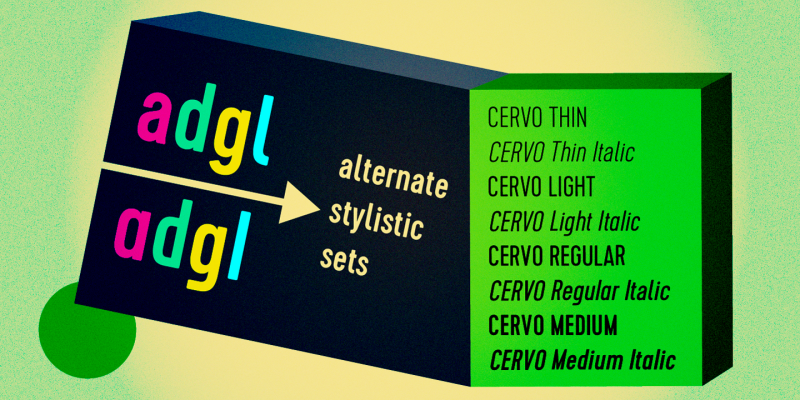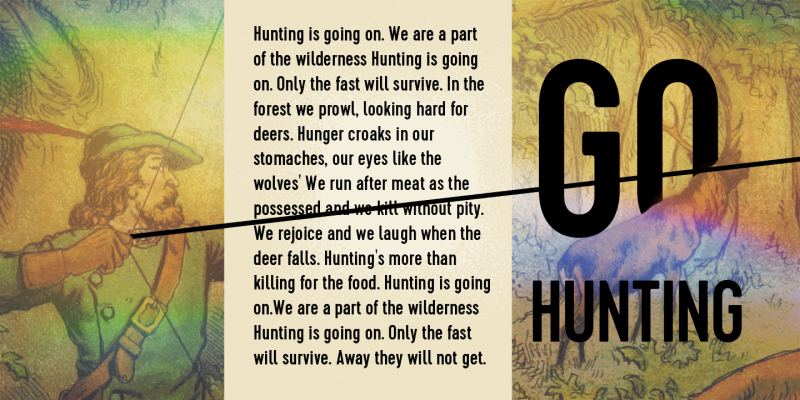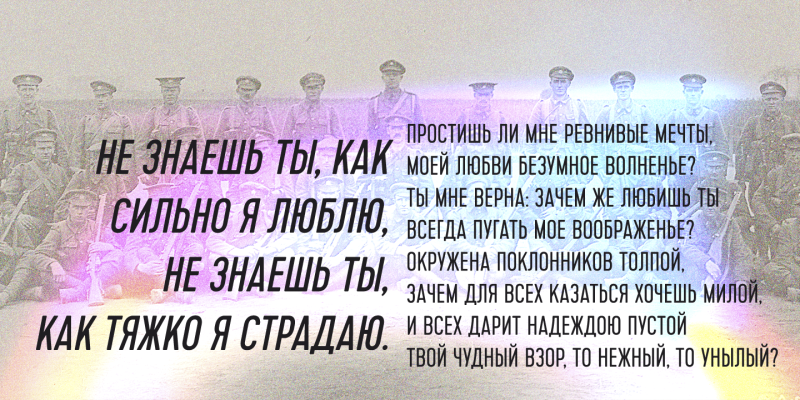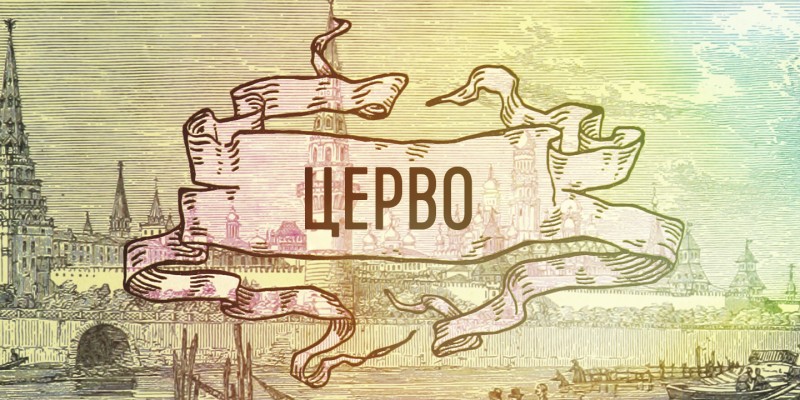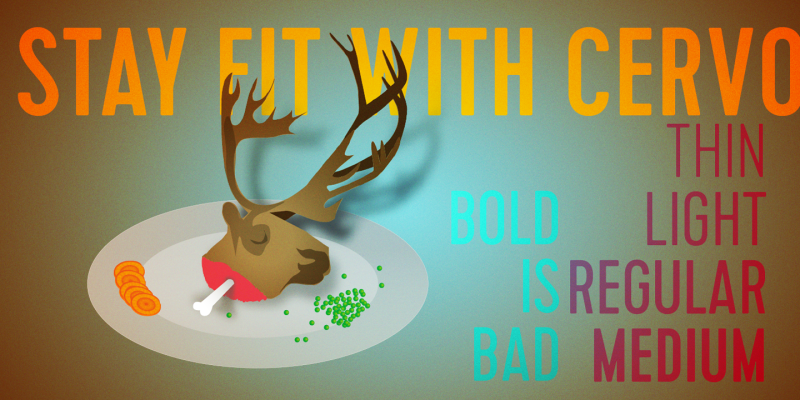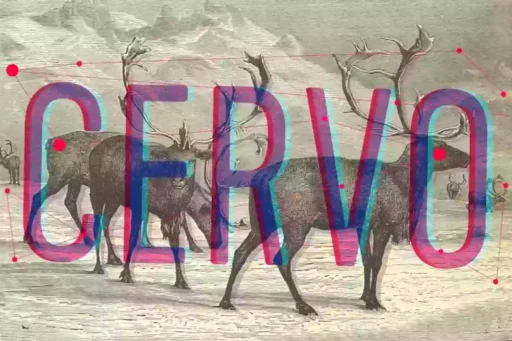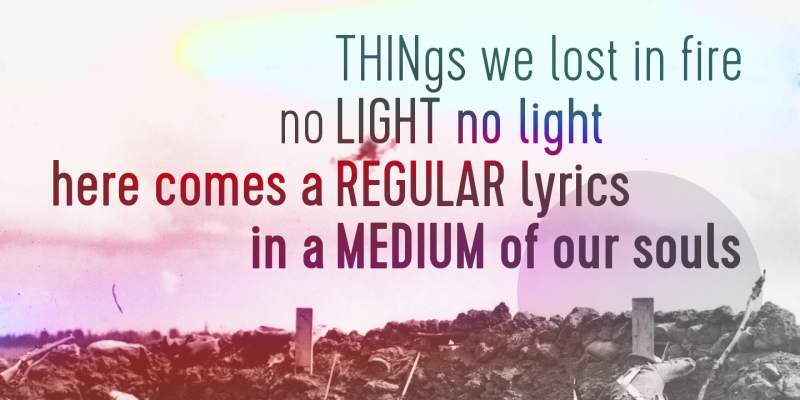
Cervo Font
Cervo Font, referring it to be the younger sister of Kapra is also another typographic personality in its own right. It is a rather slim looking typeface that comes in Medium and Thin weights that are more refined and will provide a nice alternative to the compared font. Drawing on the alluring aesthetics of the ‘You And Me Monthly’ magazine from Poland, Cervo Font captures the spirit of the mid-1960s style with a touch of grace and class.
With its stripped-off look, Cervo Font preserves consistency and legibility, which makes it applicable in many design situations. Be it for branding, editorial layouts, or digital interfaces, the clear lines and well-proportioned make it legible and attractive.
The availability of eight different combinations of both lower and upper case characters in this font offers designers with a variety of versions to investigate and play with. Ranging from sophisticated titles to polished body text, Cervo Font is a versatile font that permits various typographical compositions. It helps designers to express their message with readability and aesthetics.
It represents mid-century typography, a modern interpretation that’s classic and suitable for modern times. The simplicity of lines and sophisticated aesthetics of this font imparts understated elegance to any design project.
T is widely used in branding, editorial design, and more. In branding and corporate identity, it adds a unique flavor to logos and stationery. The clean lines and elegant proportions of these products convey a powerful visual image. Another is that Cervo Font provides readability and style in editorial design, which includes magazines, books, and newspapers.
It offers a stylish typographic solution for headlines, body text, and quotes, thus augmenting the aesthetic value of editorial layouts in general. Moreover, the adaptability of Cervo Font is seen to digital interfaces. Its clear outlines and distinct letterforms conveniently provide the optimum legibility, even in different sizes of the screens, which makes it mostly preferred for web sites, mobile apps, and digital publications.
Cervo Font is a Sans Serif Fonts font that brings a professional and versatile look to your projects. Cervo Font, referring it to be the younger sister of Kapra is also another typographic personality in its own right.